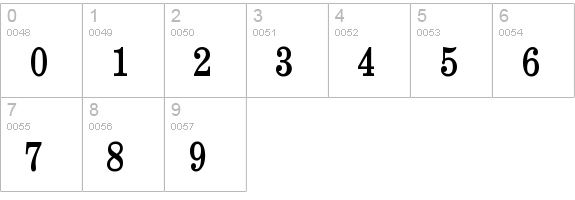
Annual-Condensed Bold Font Details
Annual-Condensed Bold is a strong, high-contrast, condensed-width variant in the Annual typeface family \xE2\x80\x94 well suited to headlines, attention-grabbing titles, and strong calls-to-action.
Annual-Condensed Bold font is a modern and stylish typeface that exudes confidence and sophistication. With its bold and condensed design, this font is perfect for making a strong statement in your designs. Whether you're creating headlines, posters, or branding materials, Annual-Condensed Bold will make sure your message stands out. The best part is, Annual-Condensed Bold font is completely free to download at FontsMarket.com. You can easily access this versatile font and use it in your projects without any hassle. Don't miss out on this amazing opportunity to enhance your designs with the striking Annual-Condensed Bold font. Download it now and add a touch of boldness to your creative endeavors.